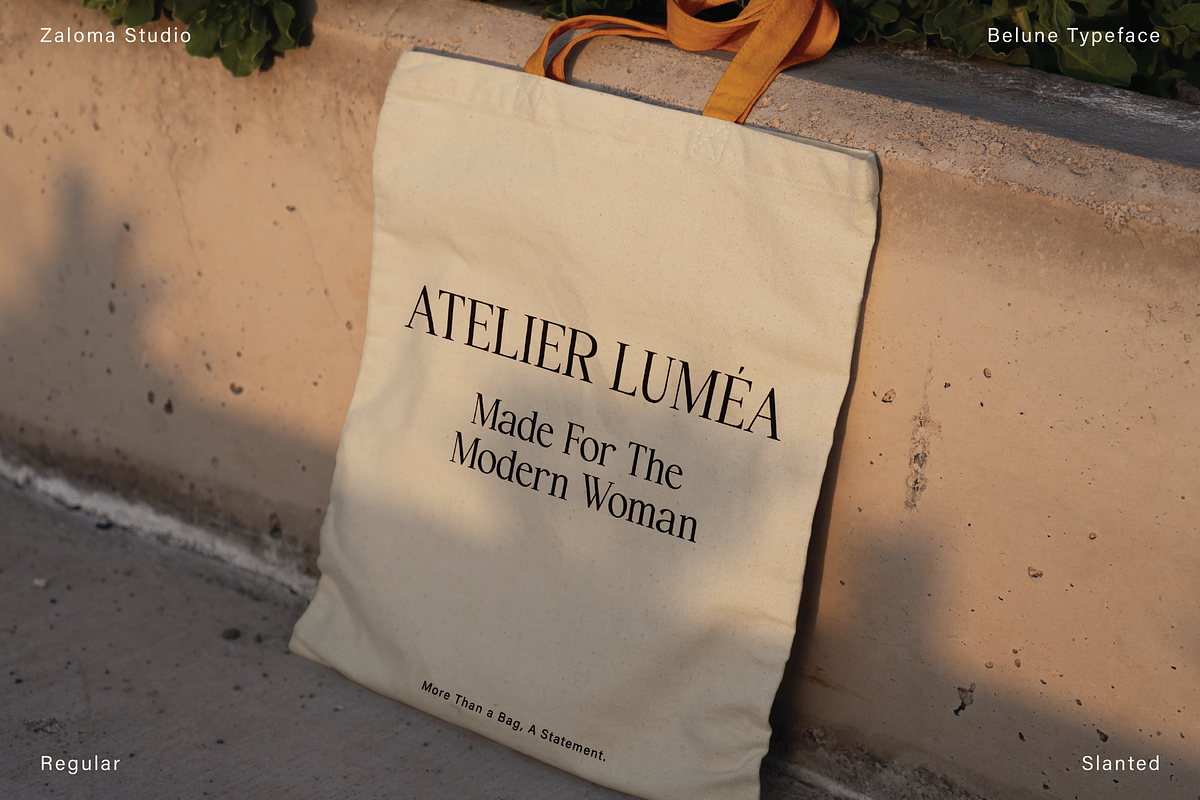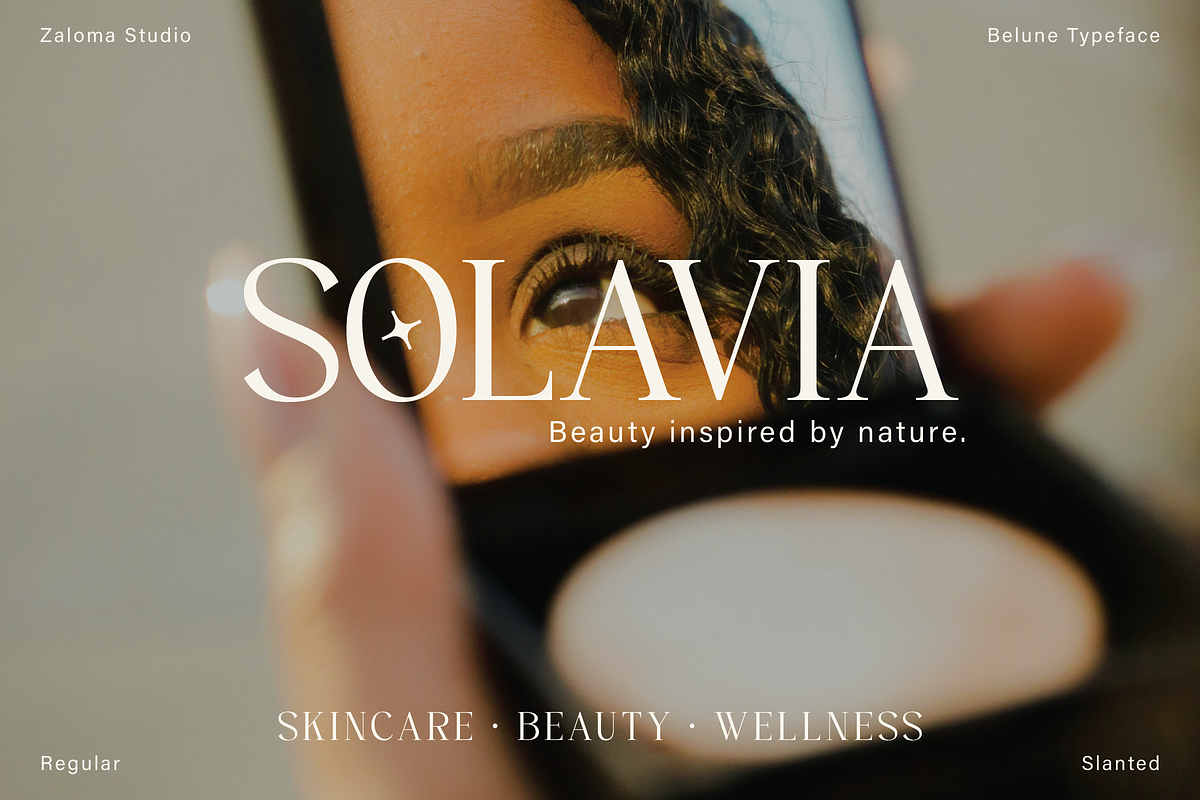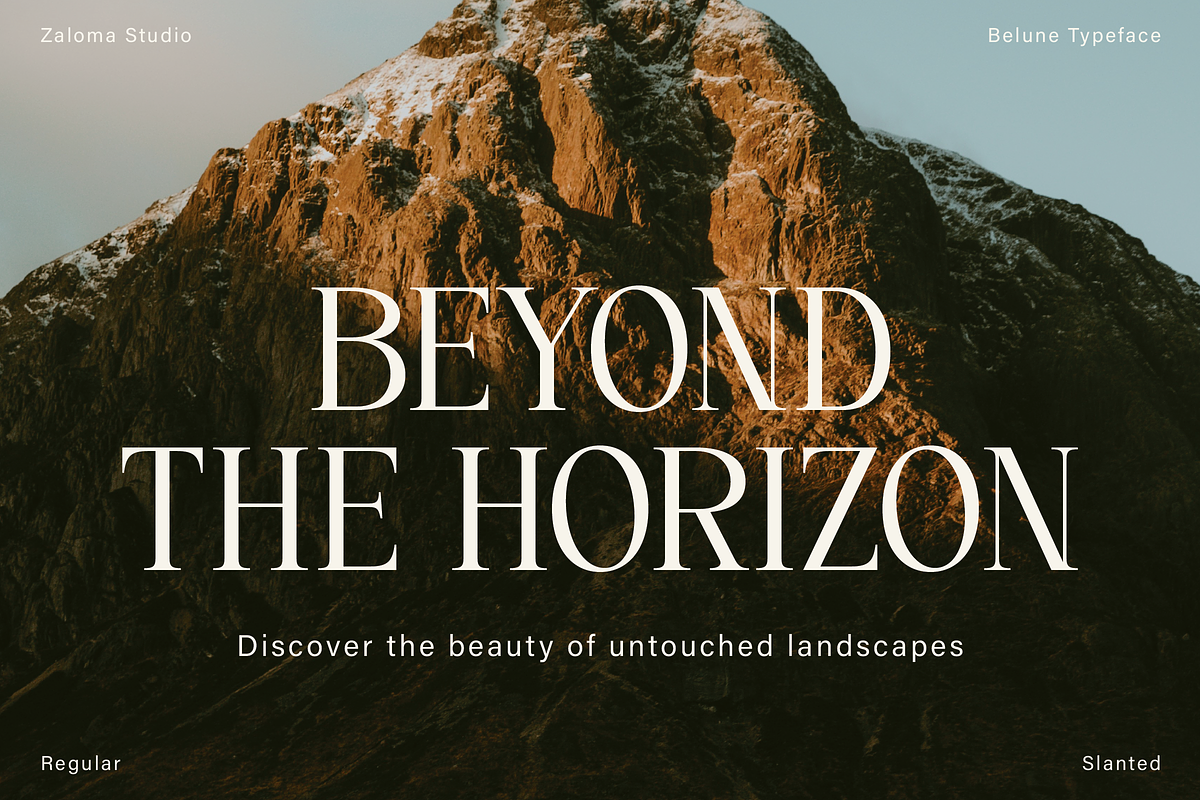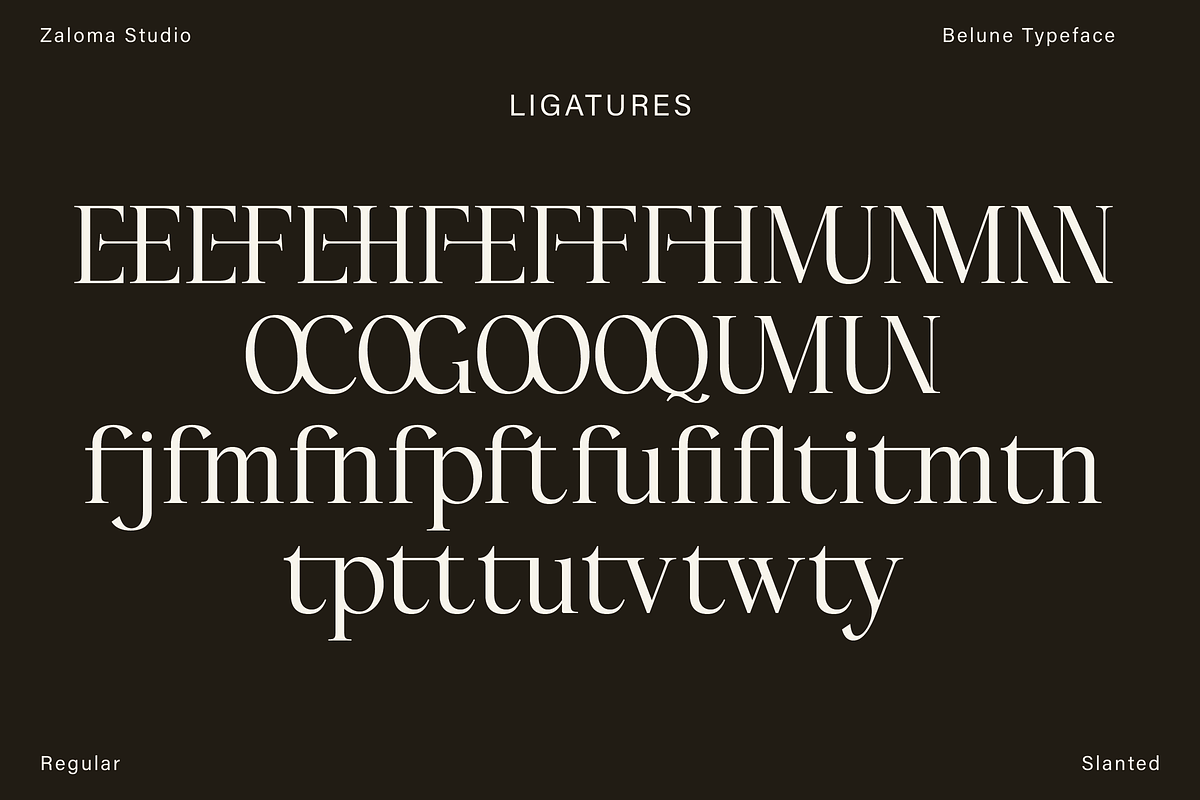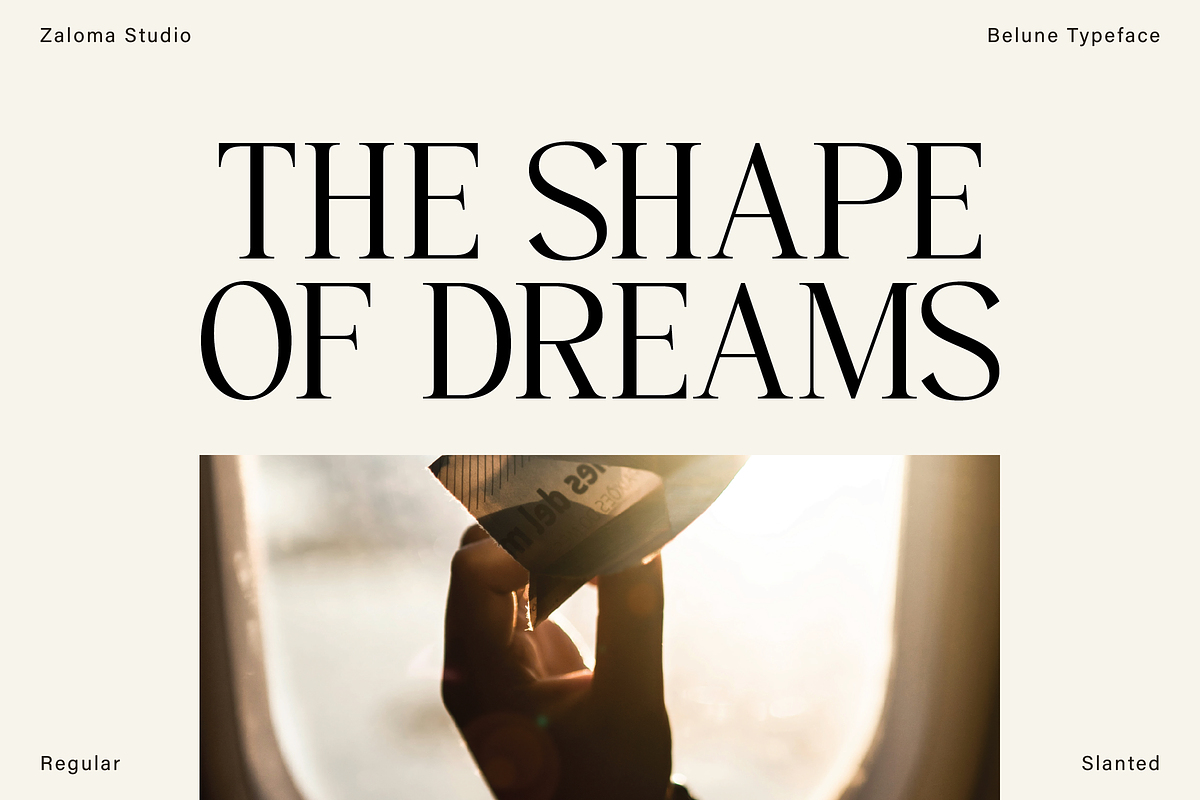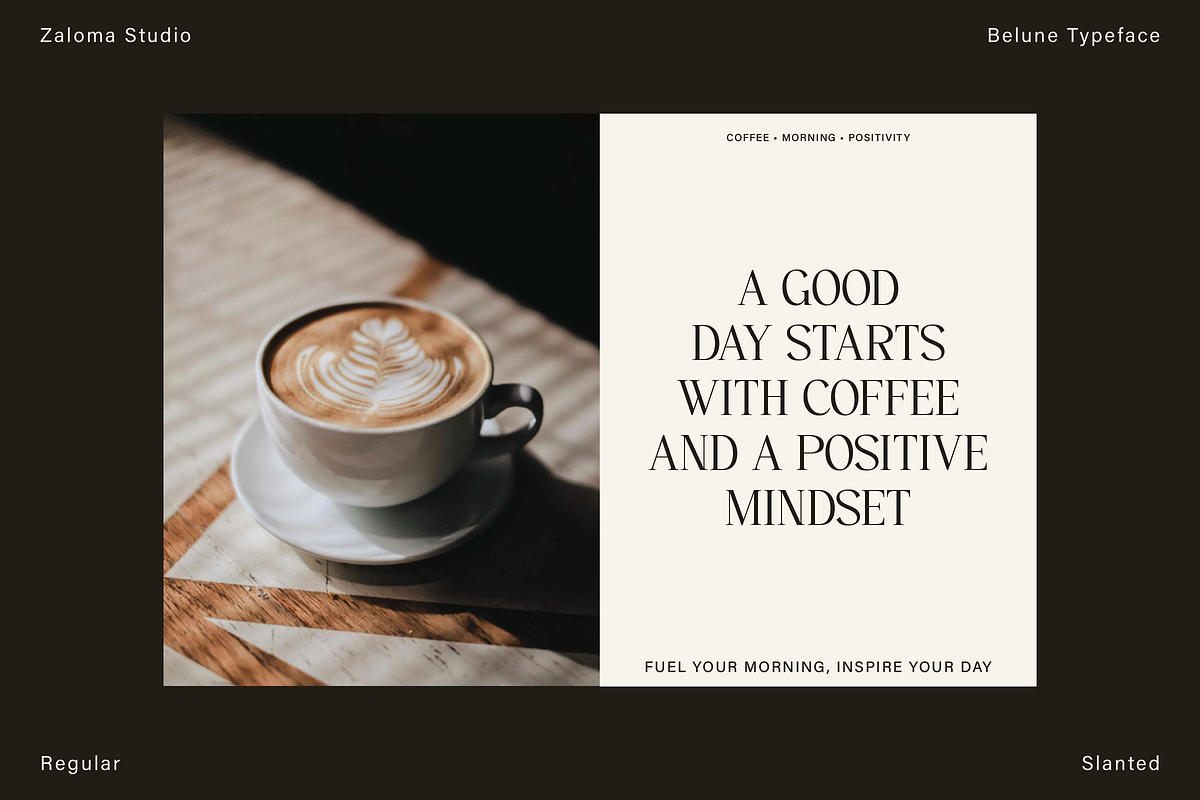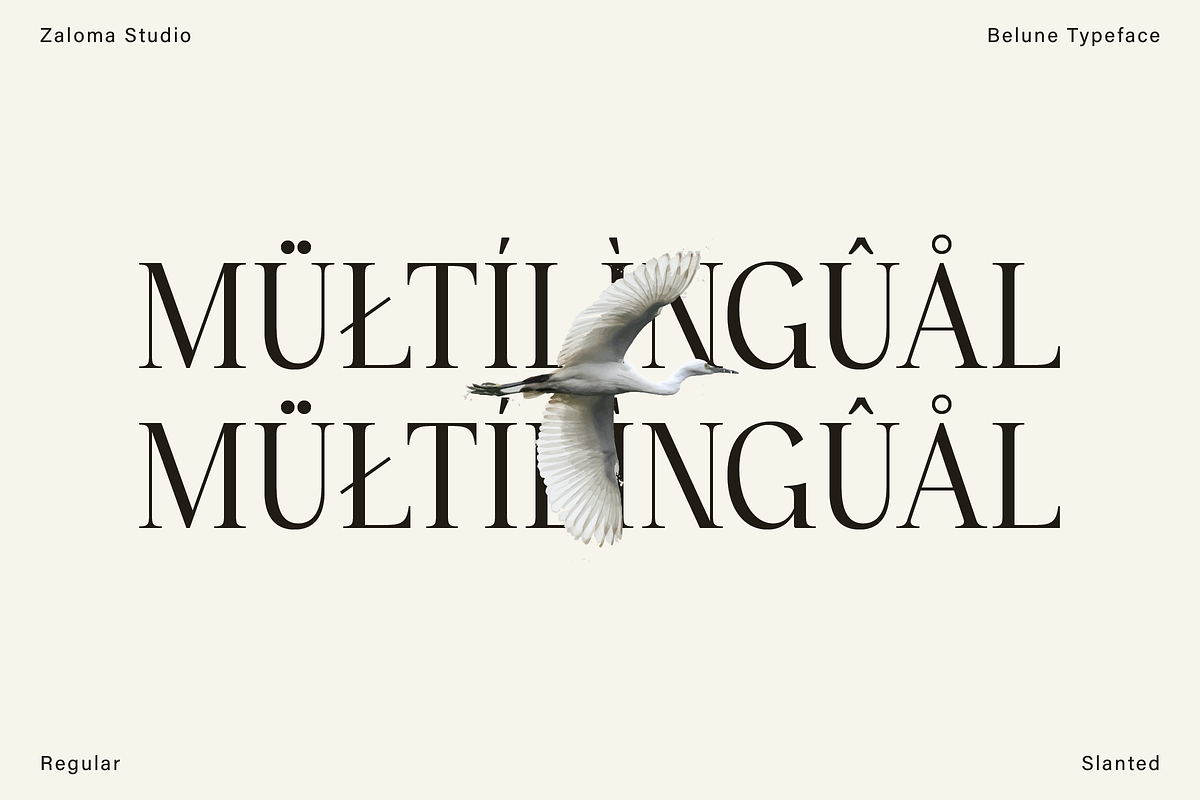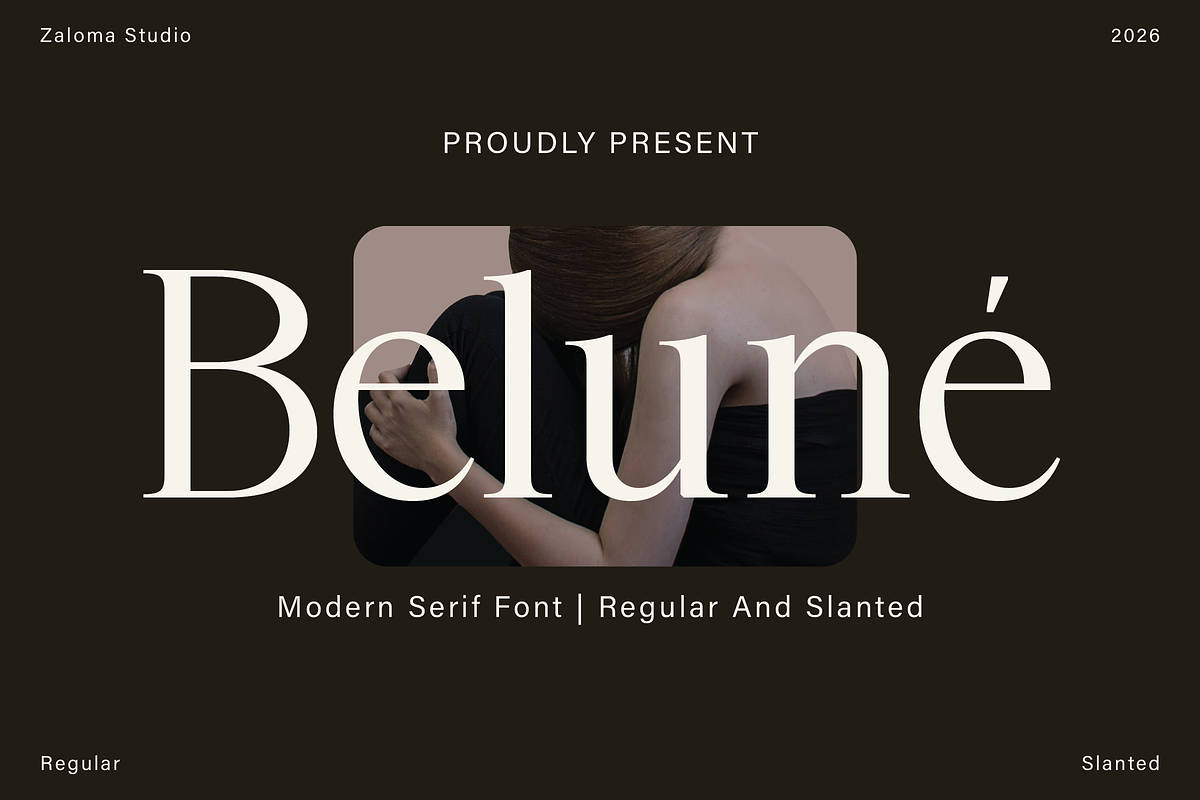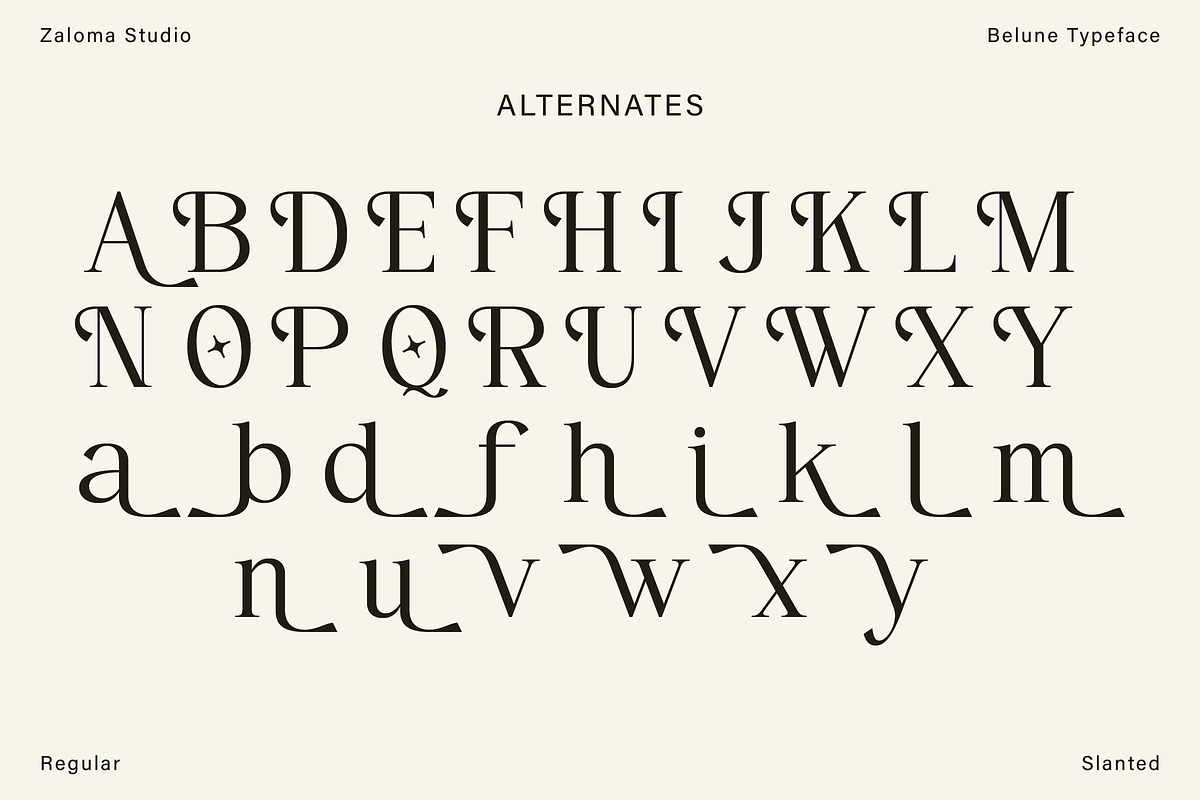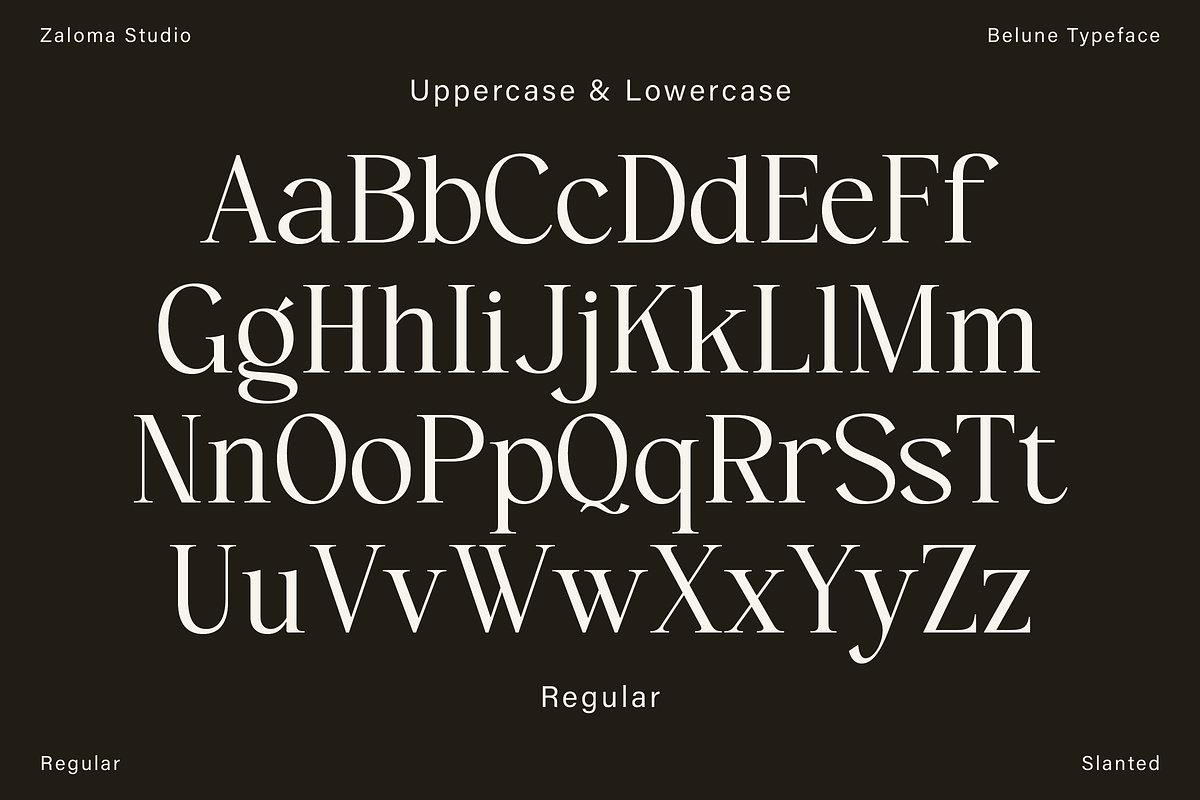
Belune
Beluné is a modern serif typeface that seamlessly blends timeless elegance with contemporary sophistication. Designed with refined letterforms, graceful curves, and balanced proportions, it delivers a luxurious and professional aesthetic while maintaining exceptional readability. Its clean structure and subtle high-contrast strokes create a distinctive look that feels both classic and fresh.
Available in Regular and Slanted styles, Beluné offers the flexibility to create striking visual hierarchies, from bold headlines to refined body text. Whether you're designing a premium brand identity, fashion campaign, beauty packaging, editorial layout, wedding stationery, or luxury product presentation, Beluné brings a sense of sophistication and confidence to every project.
With its versatile character and elegant personality, Beluné is the perfect choice for designers seeking a serif font that combines modern minimalism with timeless charm, making every design feel polished, memorable, and effortlessly stylish.